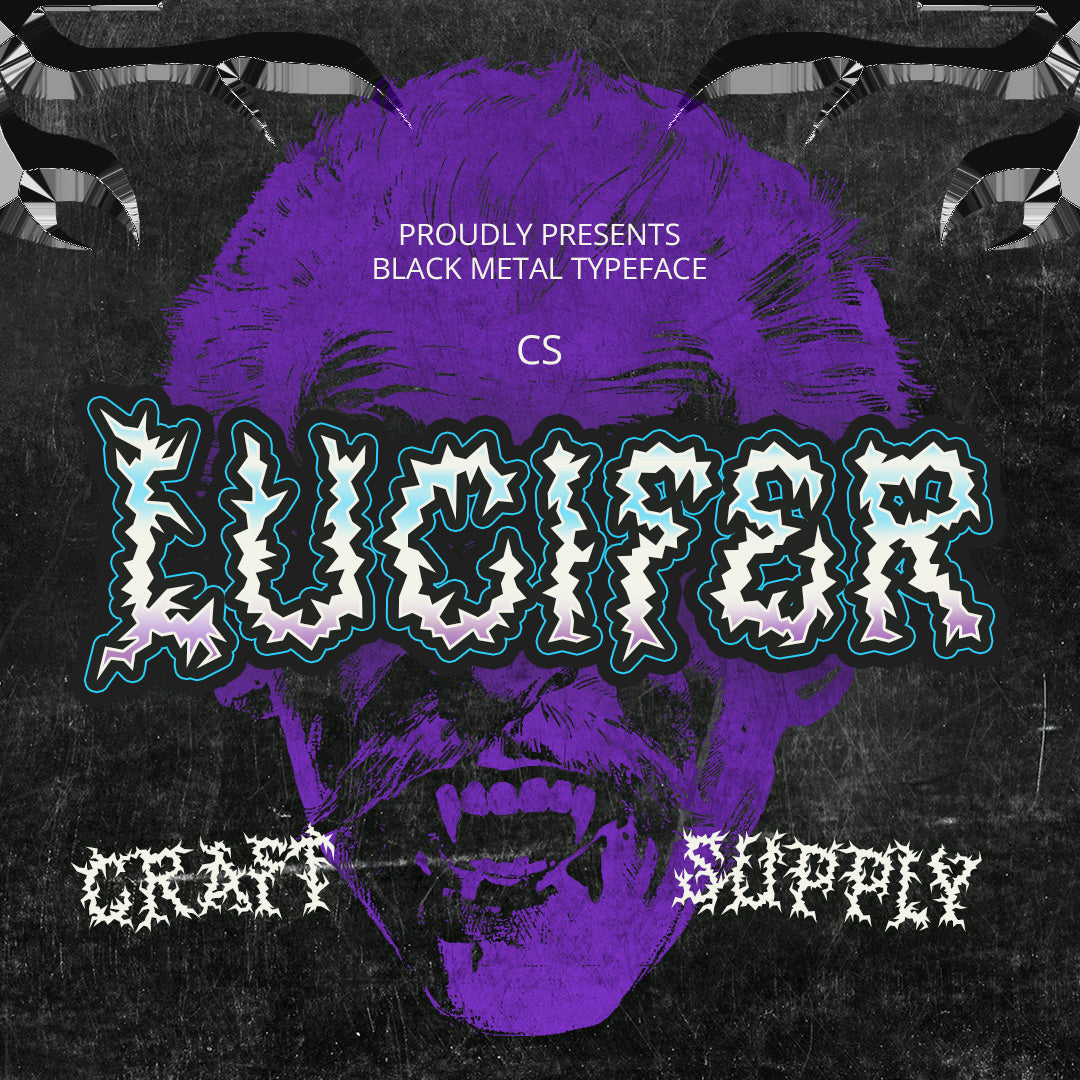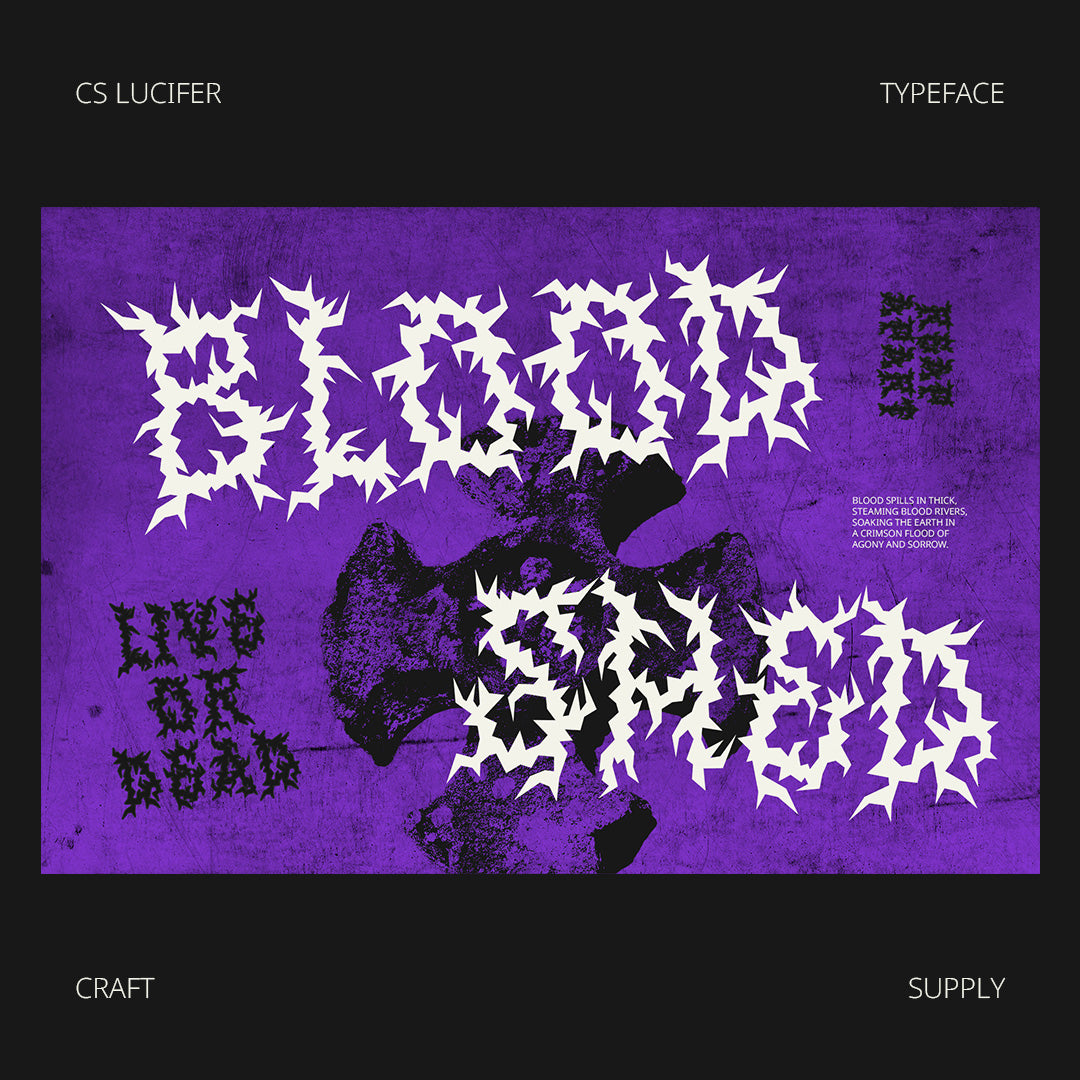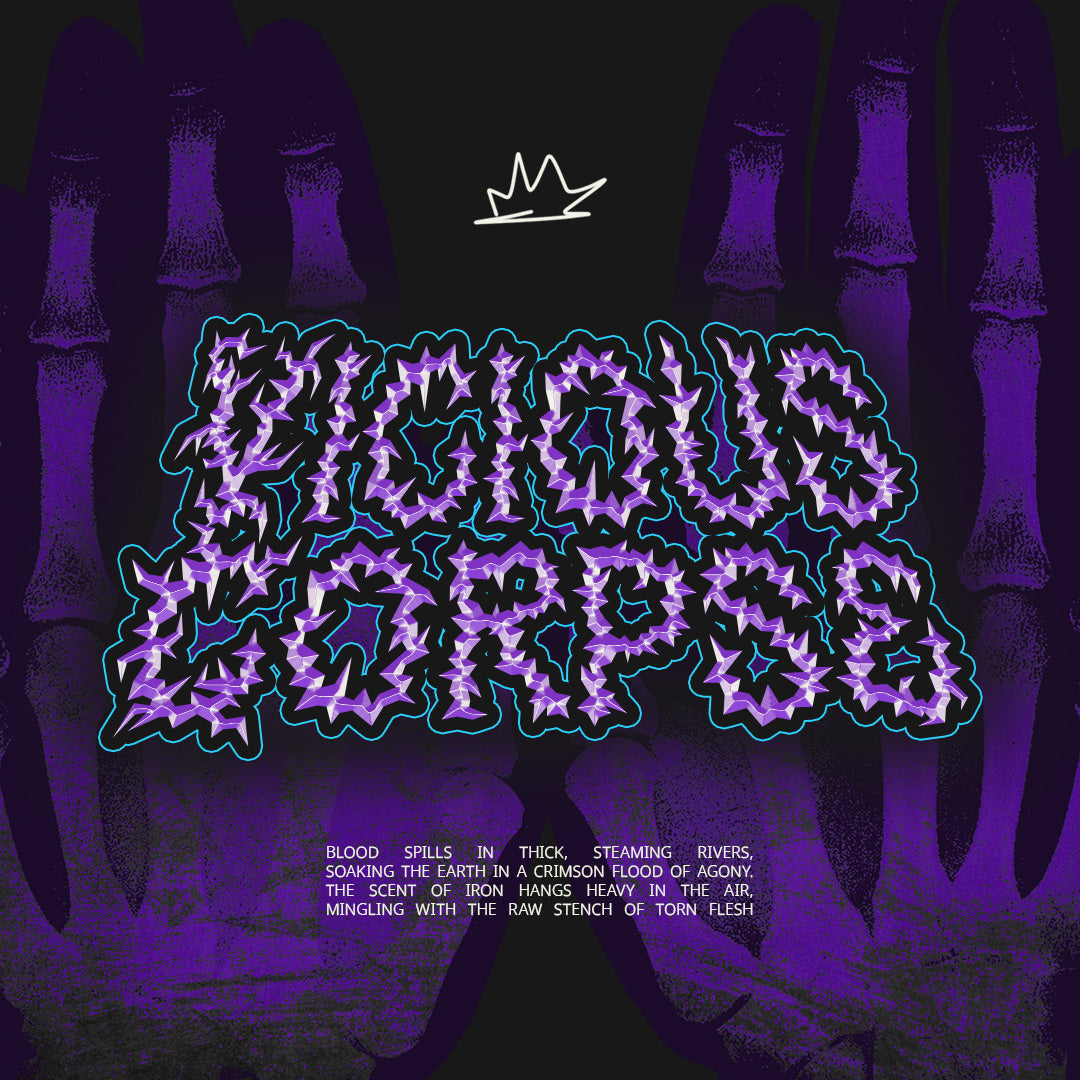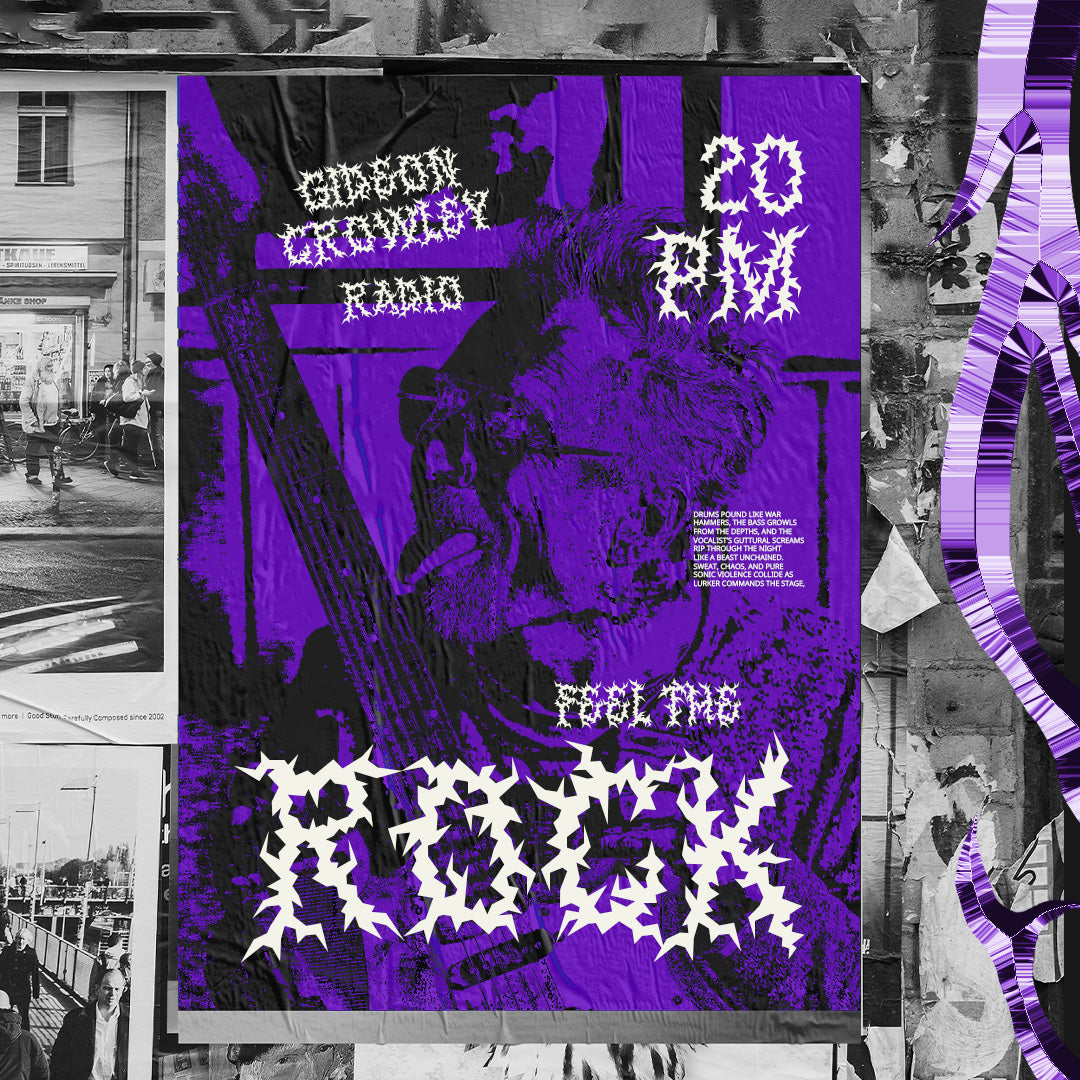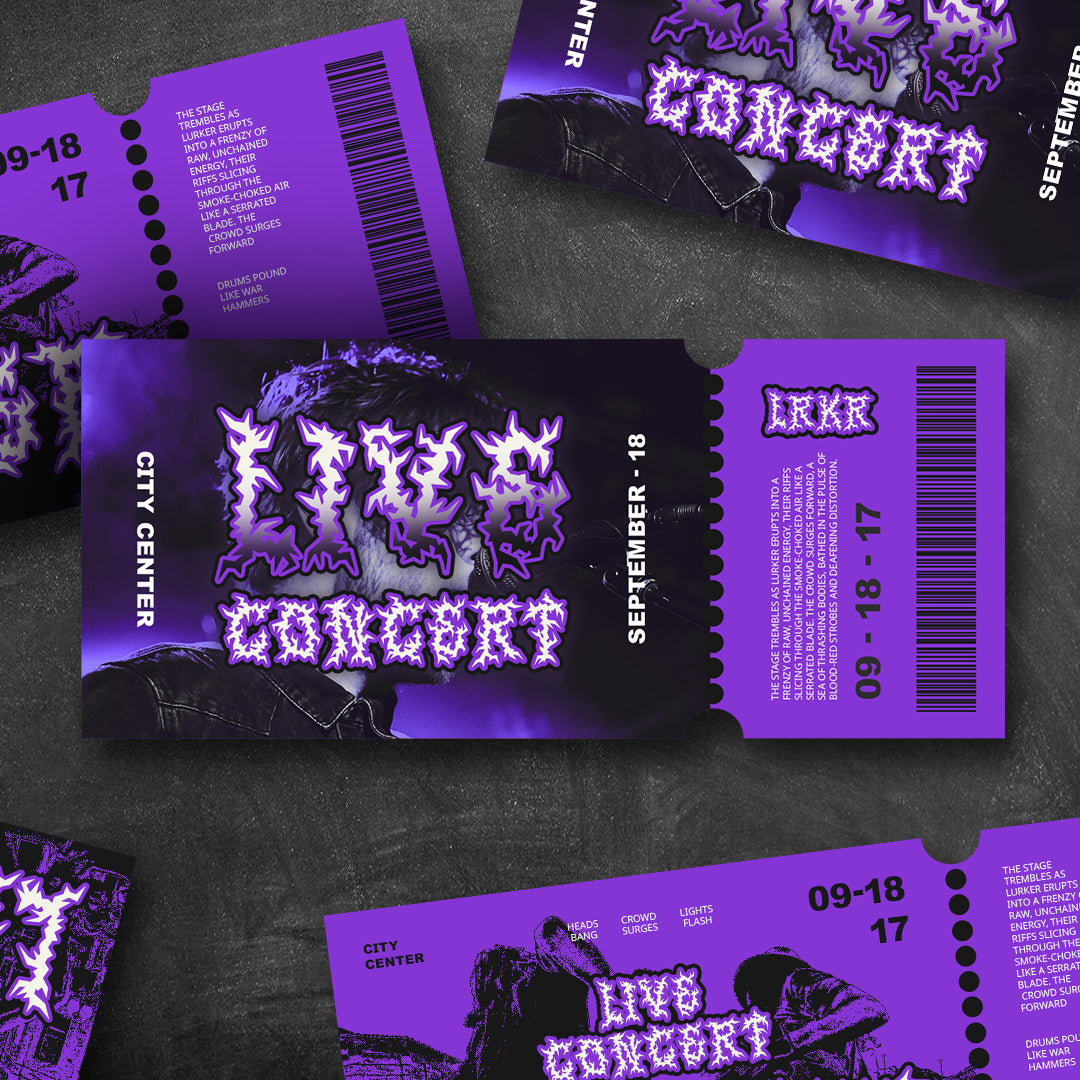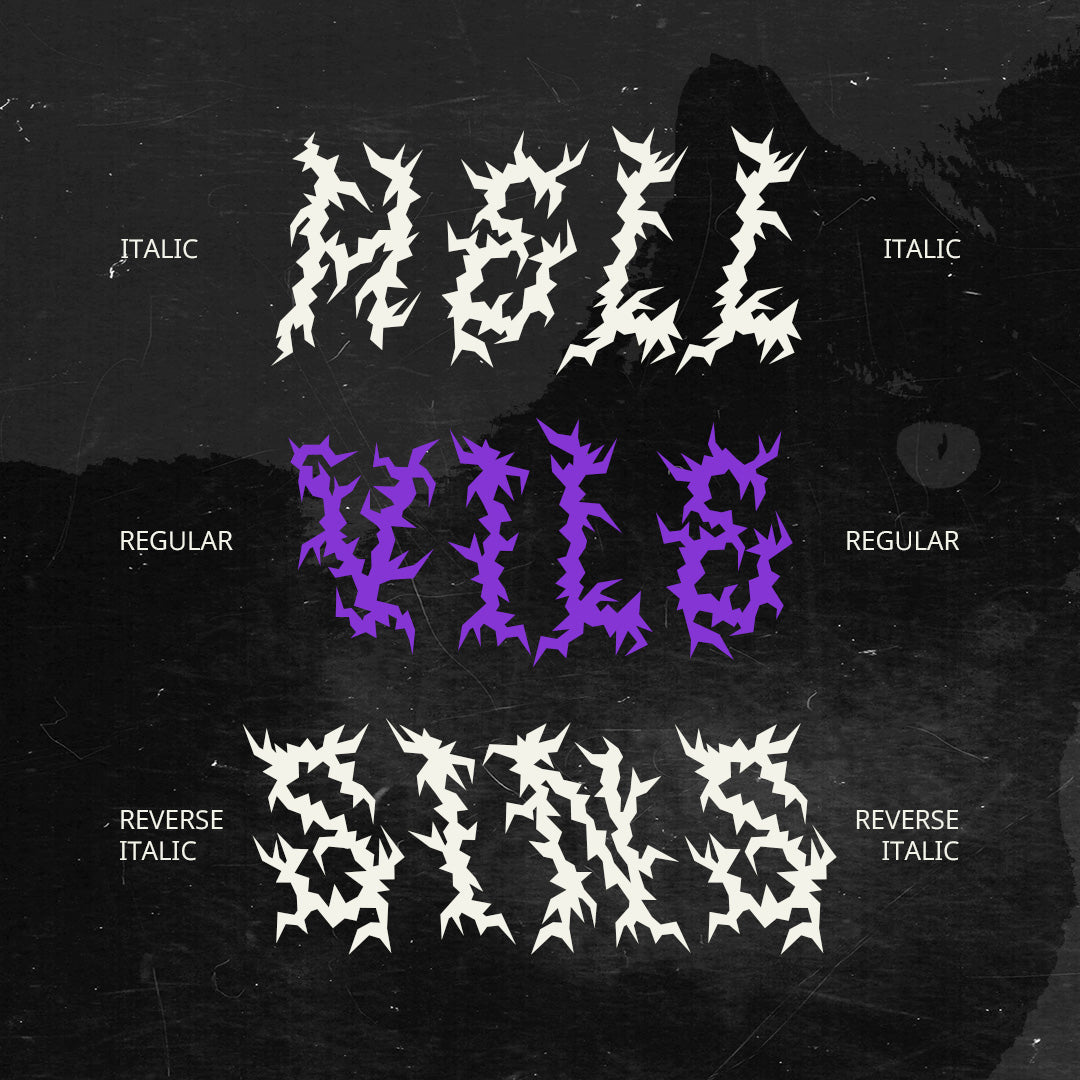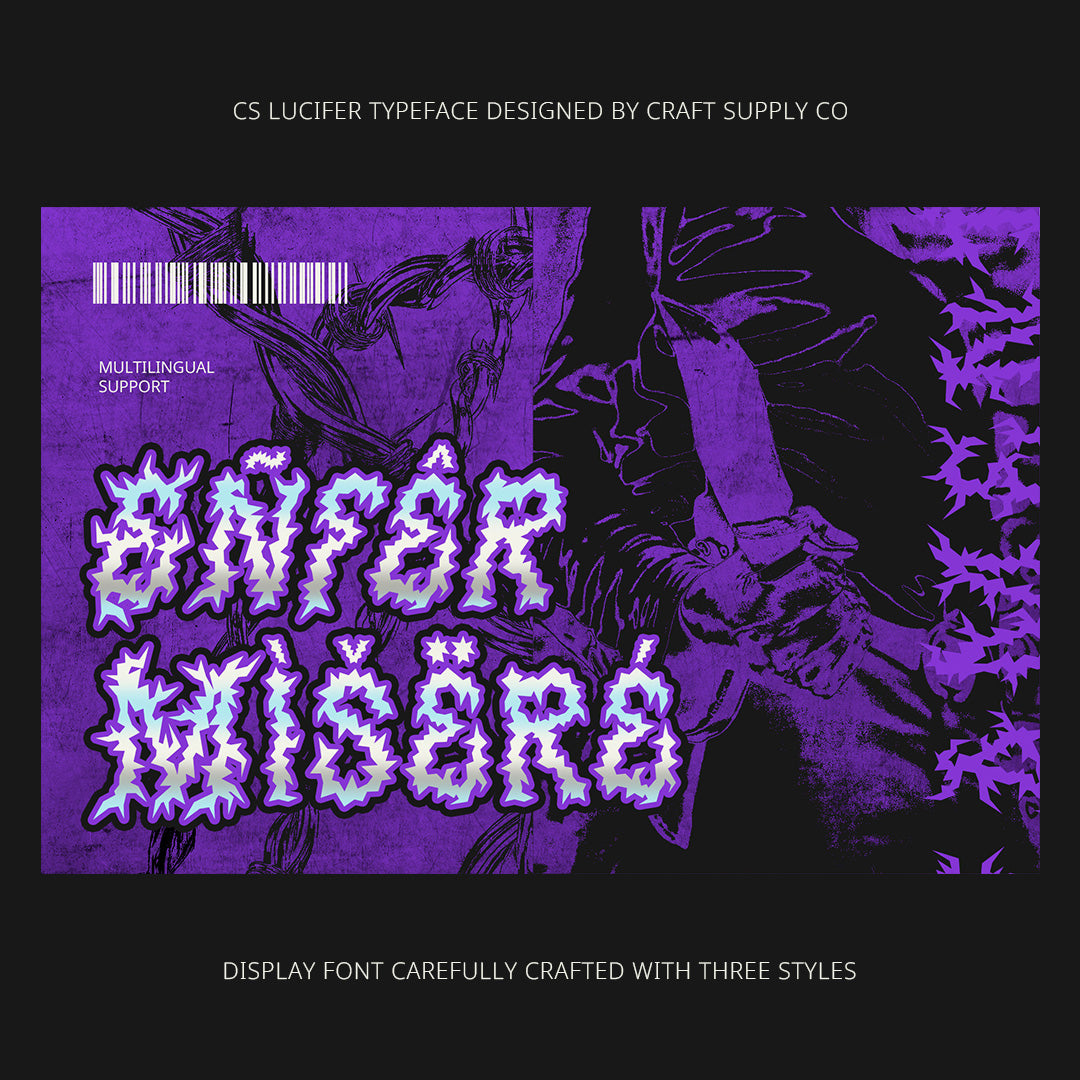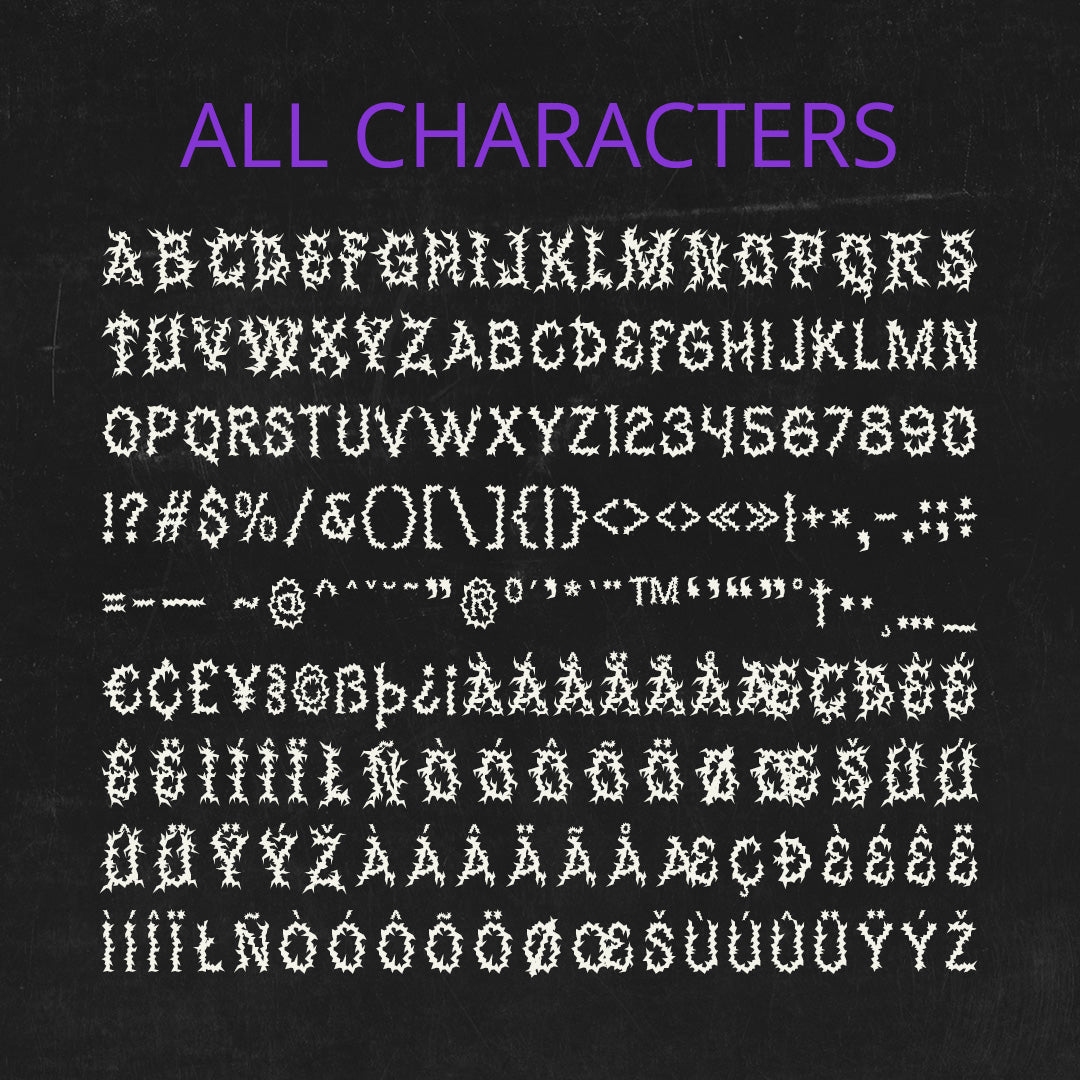
CS Lucifer – Black Metal Font
CS Lucifer – Black Metal Font: A Dark and Aggressive Statement
Sharp, Angular, and Highly Ornamented Design
CS Lucifer – Black Metal Font is a striking display typeface that embodies the raw energy and intensity of black metal aesthetics. With its sharp, angular letterforms and highly ornamented details, this font captures a sense of darkness, aggression, and mystery, making it perfect for extreme and unconventional design projects.
Gothic Symbols and Thorny Elements
Inspired by gothic symbols, thorn-like extensions, and eerie textures, CS Lucifer exudes an ominous and sinister vibe. The intricate details add a layer of depth and complexity, making each letter feel like an extension of a dark and haunting visual narrative.
Perfect for Metal Band Logos and Underground Designs
Designed for bold and rebellious visuals, CS Lucifer is ideal for metal band logos, concert posters, and merchandise. Its aggressive and chaotic form enhances the extreme and underground aesthetic, making it a go-to font for heavy music branding and alternative subcultures.
A Typeface That Commands Attention
CS Lucifer is more than just a font—it’s a statement. Whether used for horror movie titles, album covers, streetwear branding, or tattoo-inspired graphics, this font ensures an unforgettable and fearsome presence. Its raw, unfiltered energy is perfect for designs that embrace the dark, the obscure, and the extreme.
CS Lucifer Regular
CS Lucifer Italic
CS Lucifer Reverse Italic
CS Lucifer – Black Metal Font is a display typeface characterized by sharp, angular letterforms and intricate ornamentation, inspired by gothic symbols and thorny elements. It includes three styles: Regular, Italic, and Reverse Italic, making it suitable for bold and unconventional design projects.